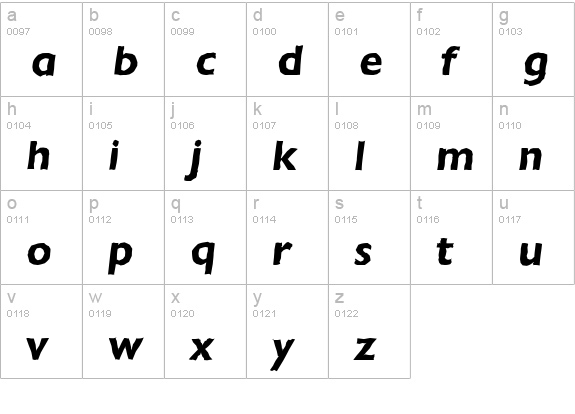
ChantillyAntique-BoldItalic Font Details
ChantillyAntique-BoldItalic font exudes a timeless elegance with its intricate detailing and bold, slanted style. This antique-inspired typeface combines classic charm with a modern twist, making it perfect for adding a touch of sophistication to your design projects. The graceful curves and strong strokes of ChantillyAntique-BoldItalic create a striking visual impact that is sure to captivate your audience. And the best part? ChantillyAntique-BoldItalic is available for free download at FontsMarket.com! Whether you're working on a vintage-inspired branding project, elegant wedding invitations, or stylish editorial layouts, this font is a versatile choice that will elevate your designs to the next level. Embrace the beauty of ChantillyAntique-BoldItalic and let its timeless appeal transform your creative work.